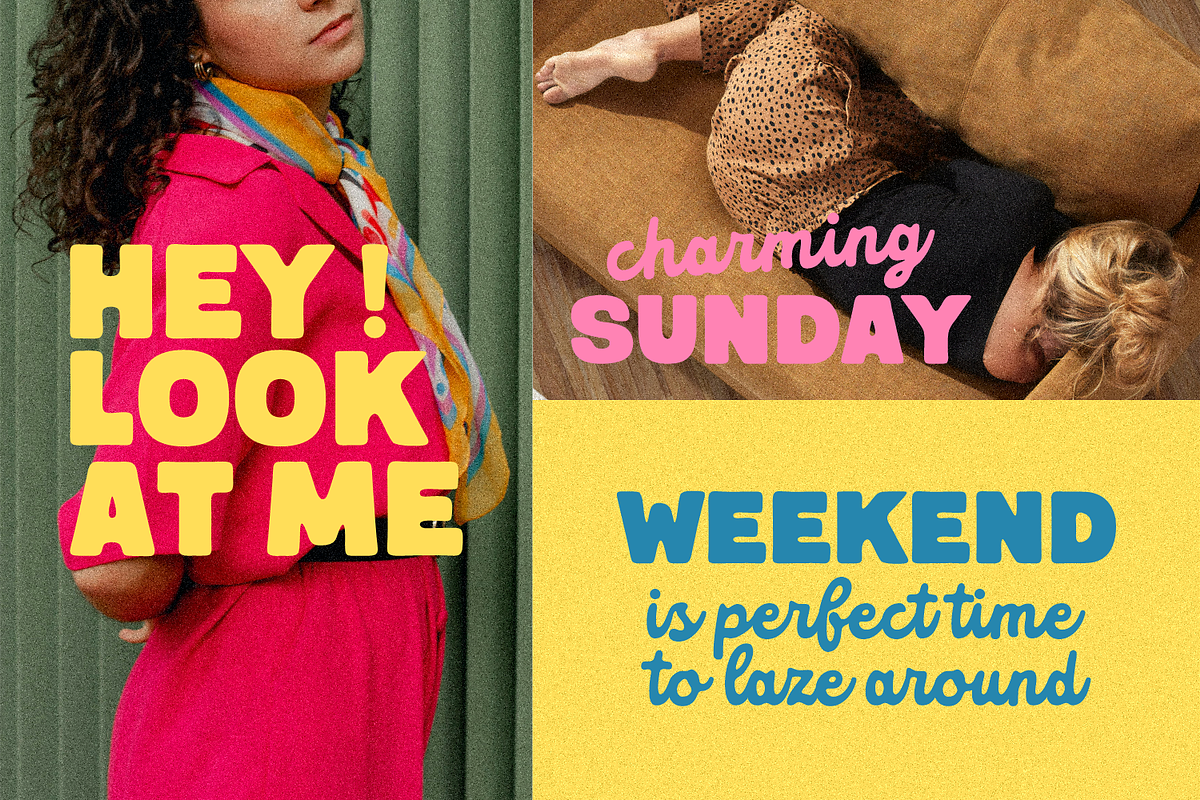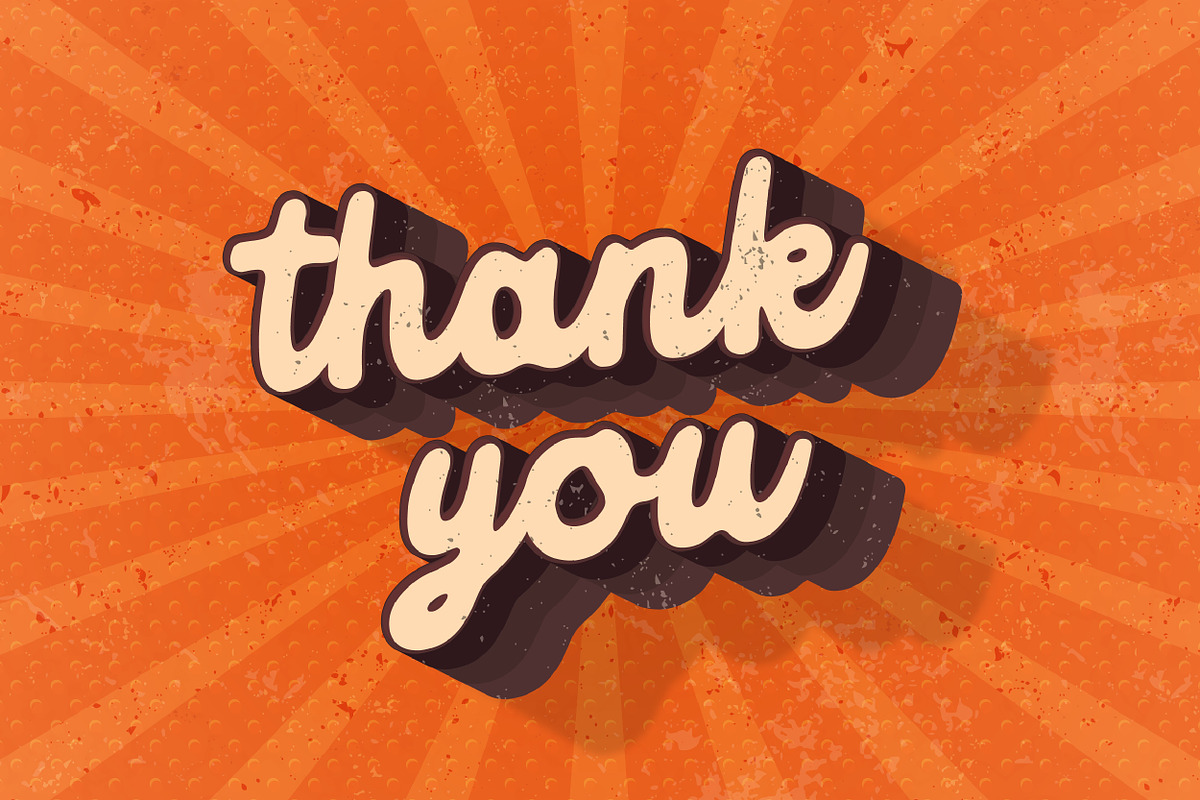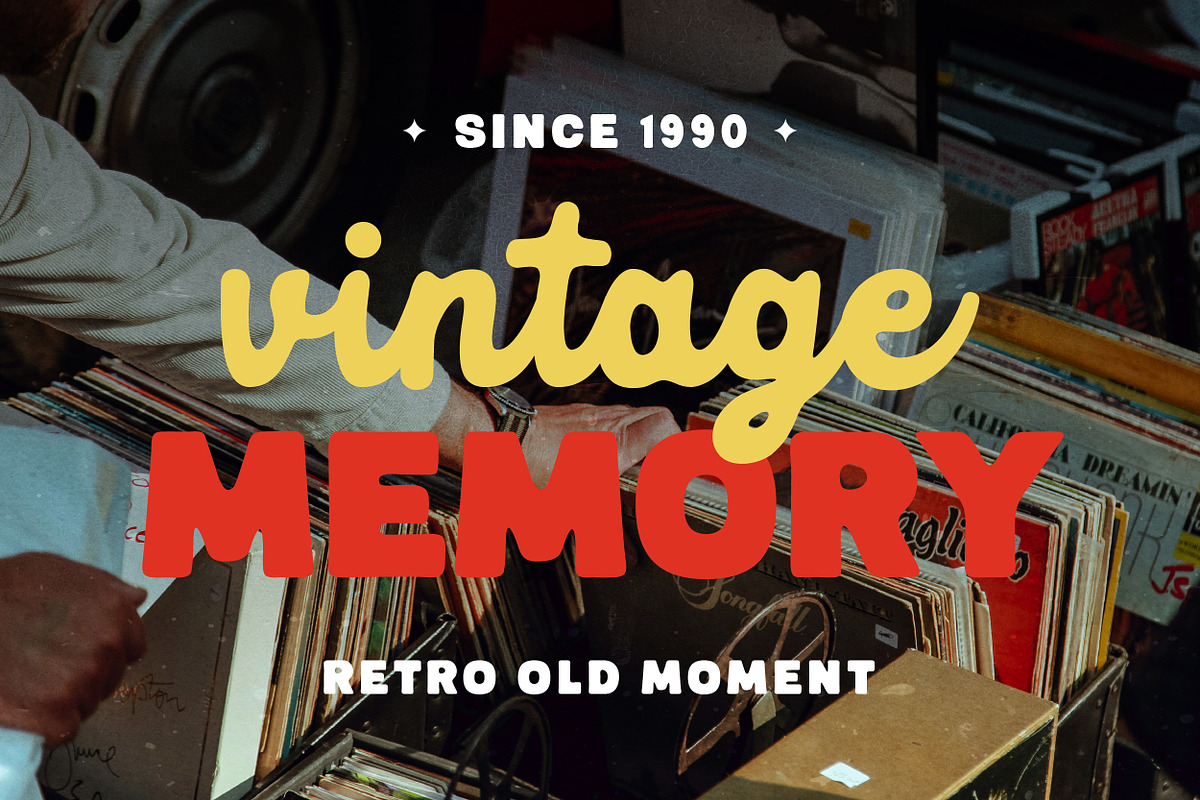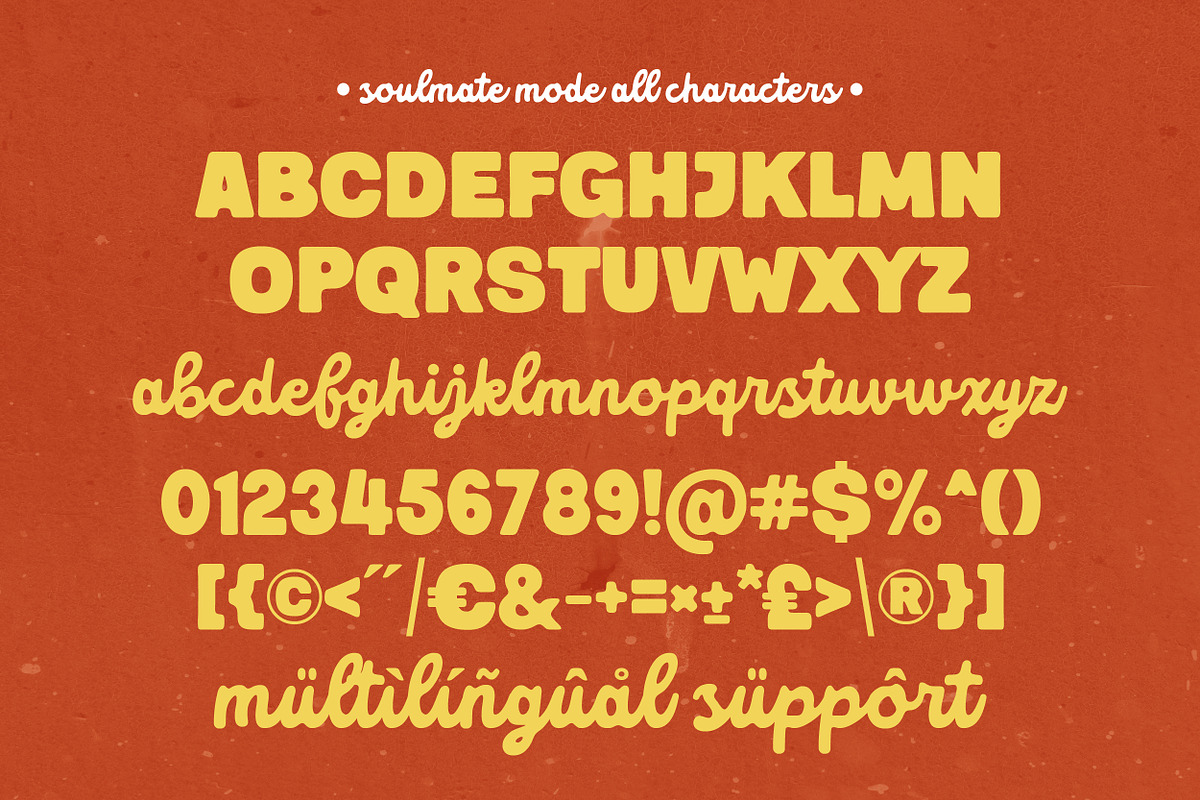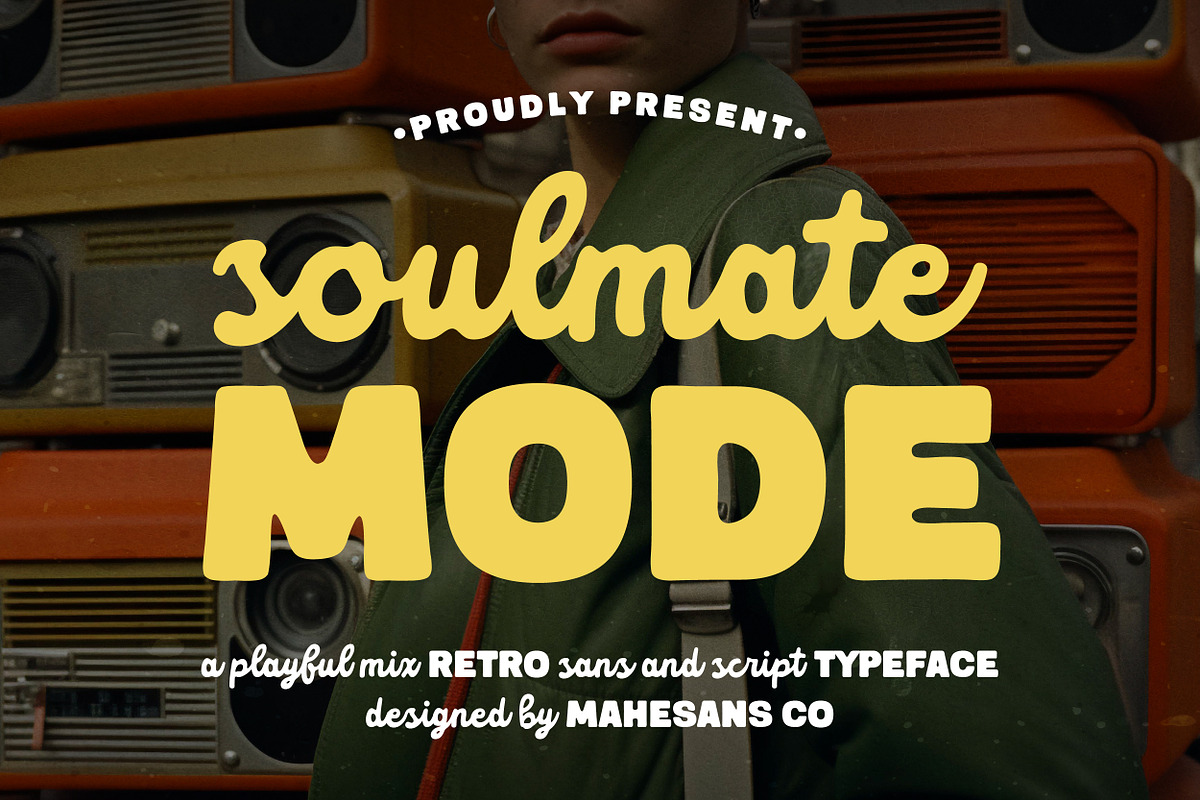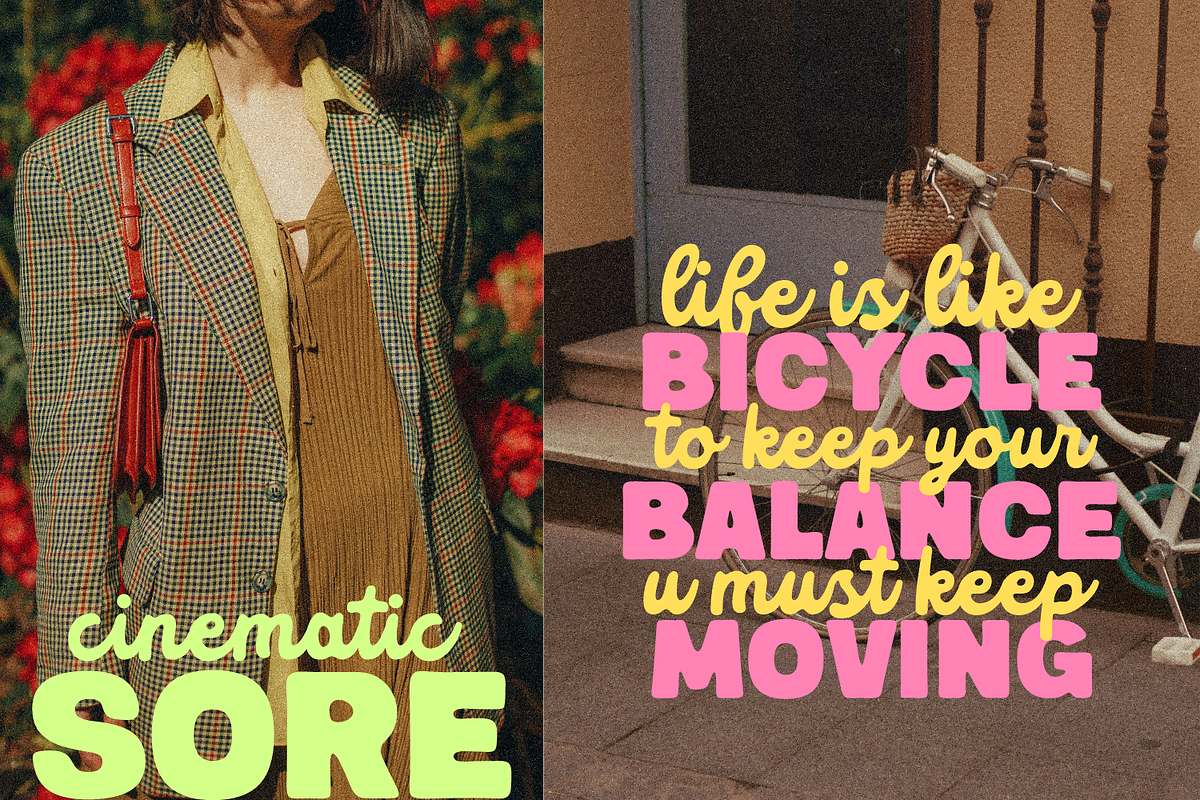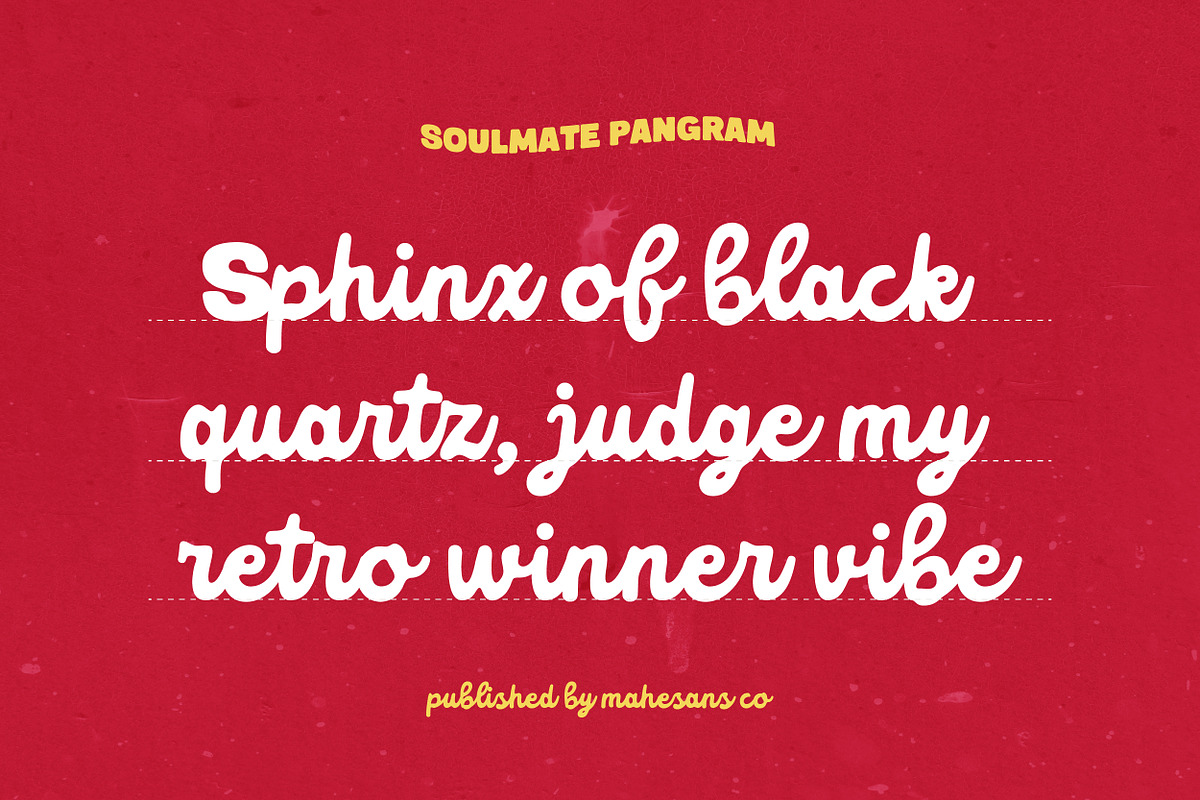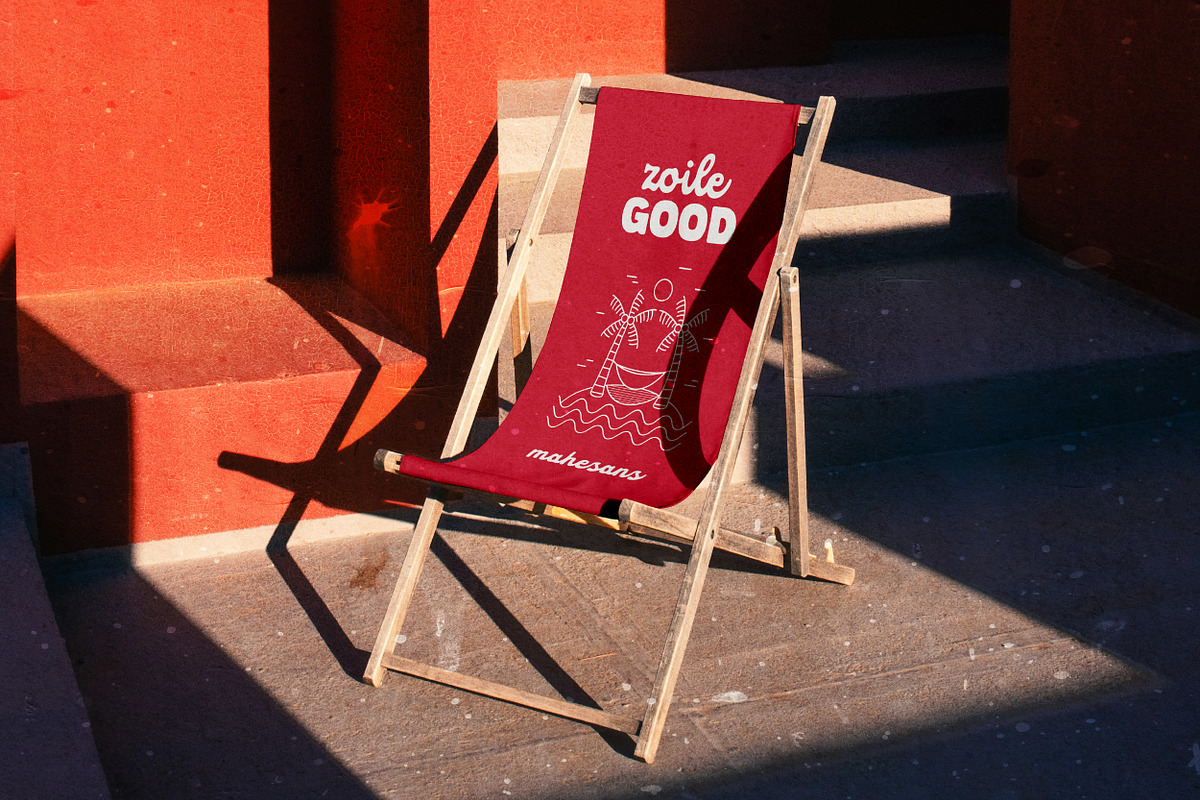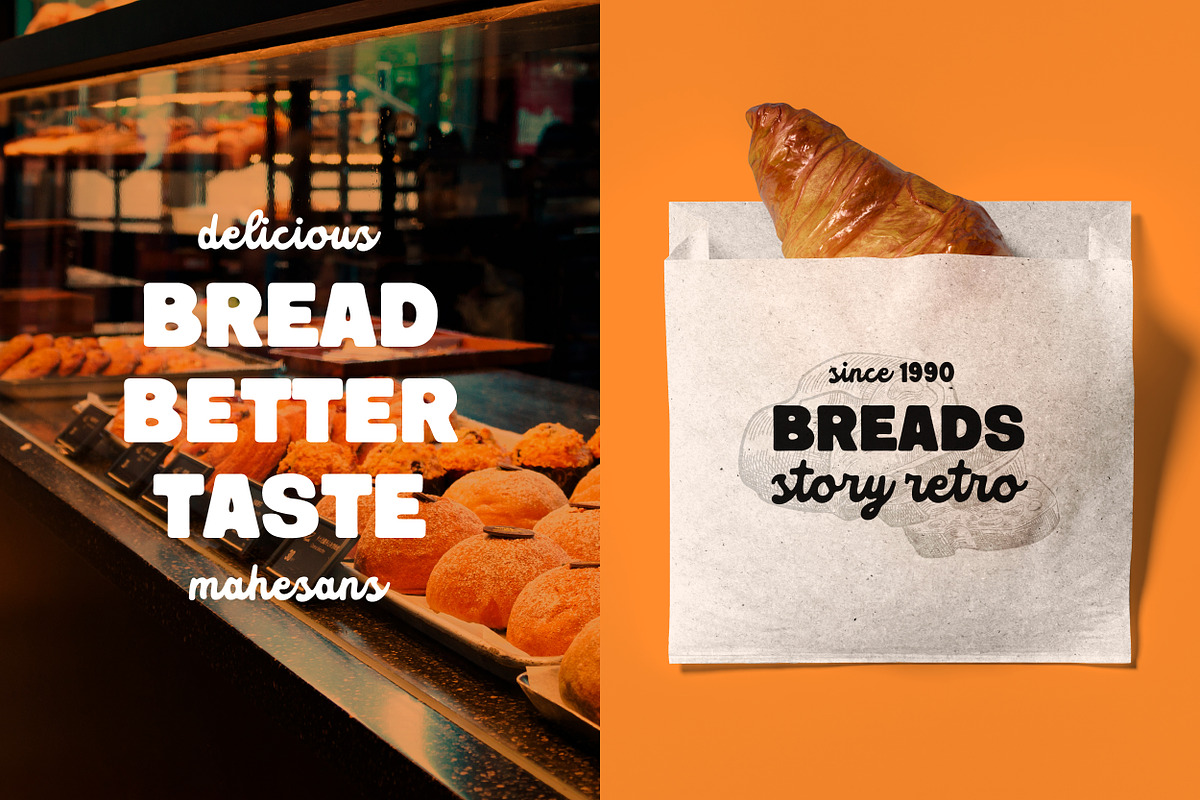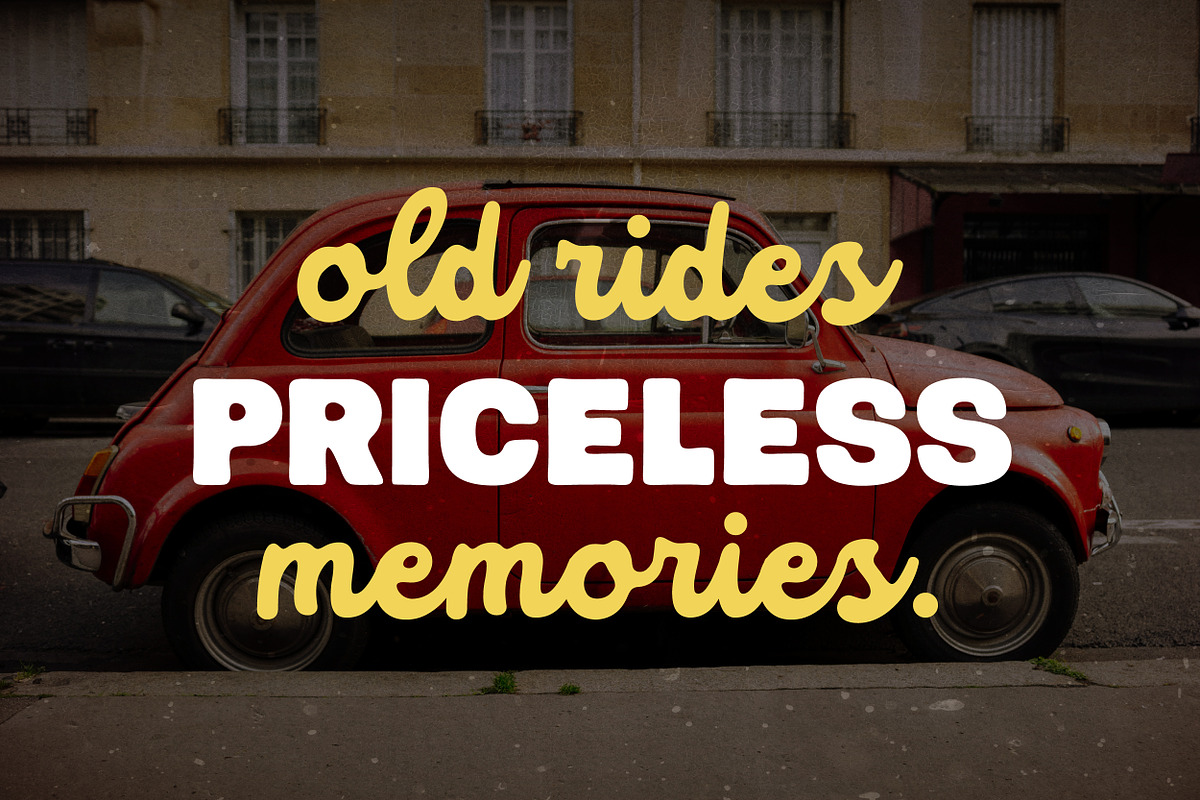
Soulmate Mode – Sans & Script Duo
Soulmate Mode is a playful retro typeface that combines a bold vintage sans with a smooth handwritten script, creating a perfect font duo for eye-catching designs. Inspired by retro posters, vintage packaging, and 70s–90s pop culture, this typeface is designed to bring a fun, nostalgic, and friendly feel to your projects.
The bold sans delivers strong, chunky letterforms that work perfectly for headlines, logos, posters, and packaging, while the script adds a natural, flowing touch that pairs beautifully for branding, quotes, and social media designs.
- Retro and vintage design
- Logo and branding
- Posters and music events
- Packaging and labels
- Social media graphics
- Quotes and invitations
- Cafe, bakery, and restaurant branding
- Multilanguage